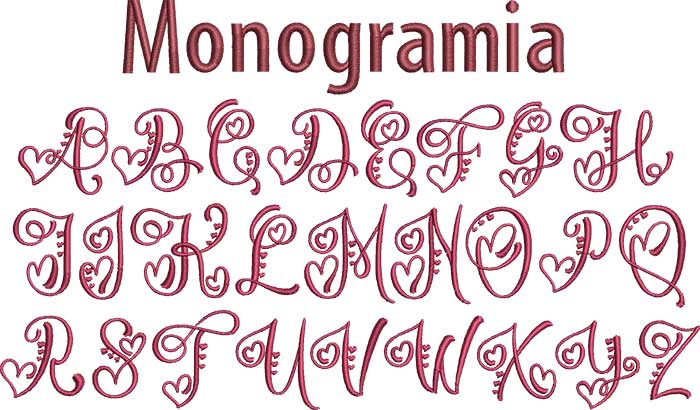
BX Embroidery Font: Monogramia
BX Embroidery Font: Monogramia is an uppercase stylized, fancy, upright script with hearts that includes A-Z (26 characters per size).
Each character in this alphabet is individually manually digitized; we do not use a TrueType to Stitches conversion utility to create our fonts. Additionally, stitch attributes such as stitch type, density, compensation, and underlay are optimized for each size available. Choose the size closest to what you need. Shrinking the smallest size is not recommended.
Our fonts were manually digitized; we do not use a TrueType to Stitches conversion utility to create our fonts. Plus, stitch attributes such as density, compensation, and underlay are optimized for each size available.